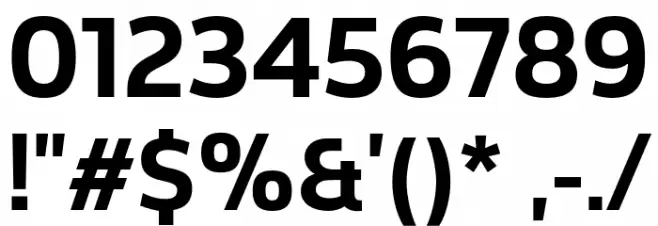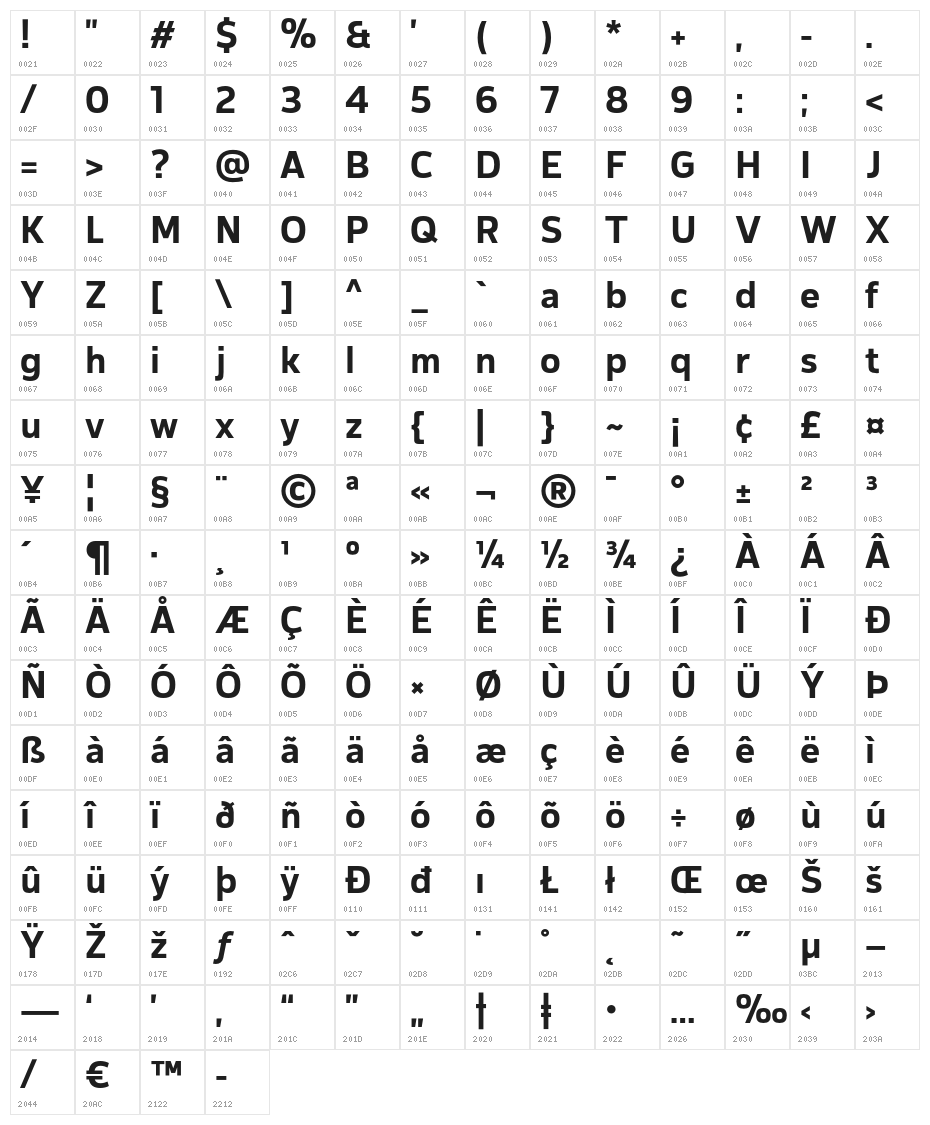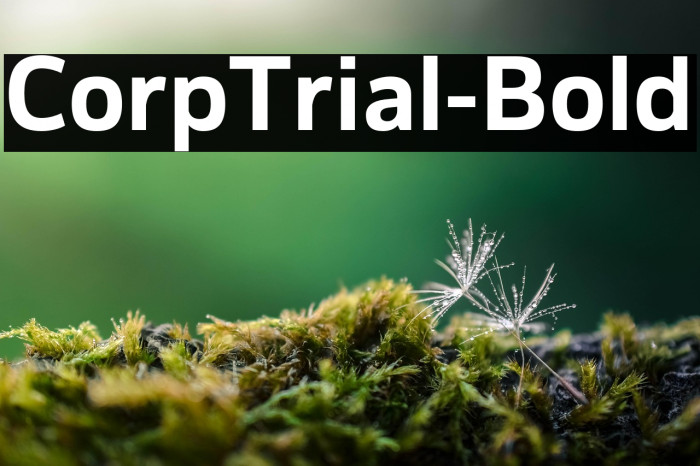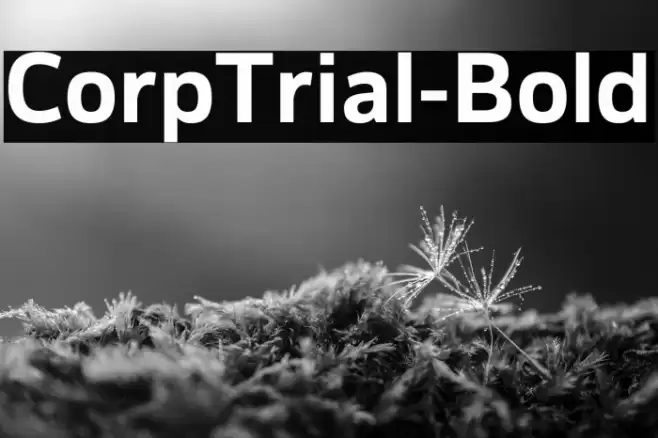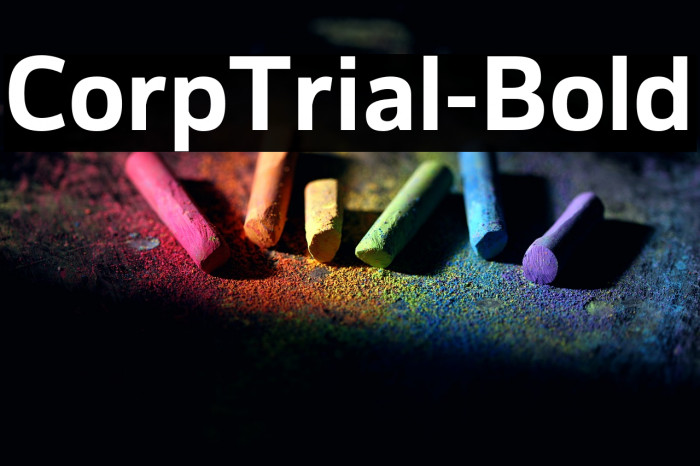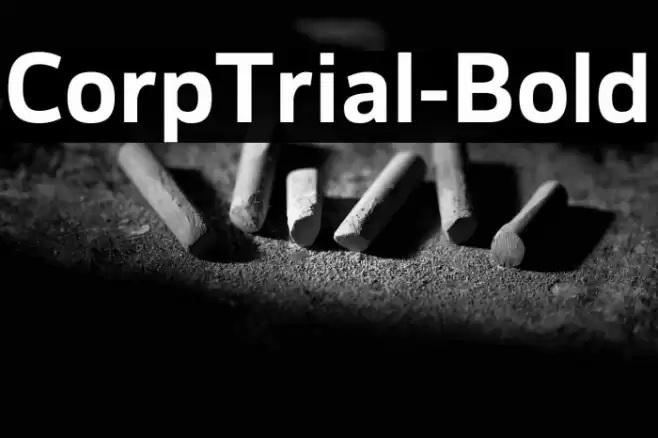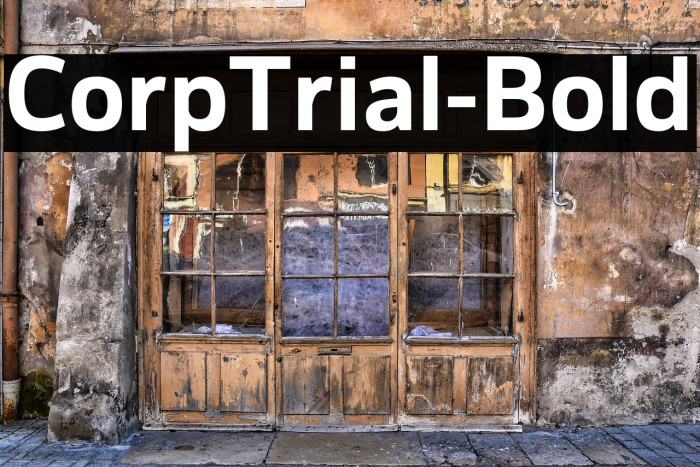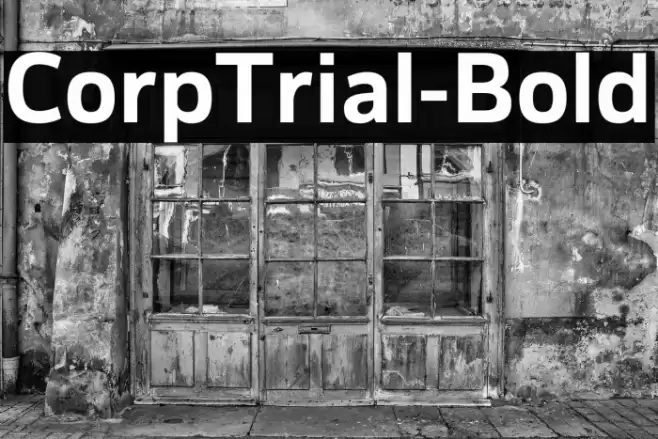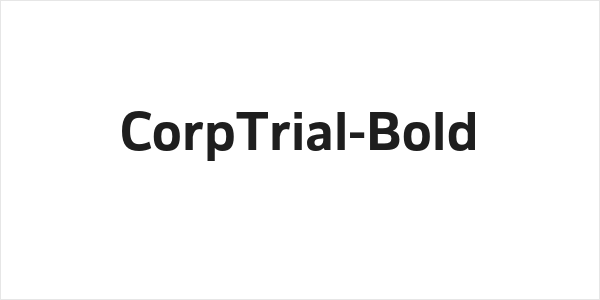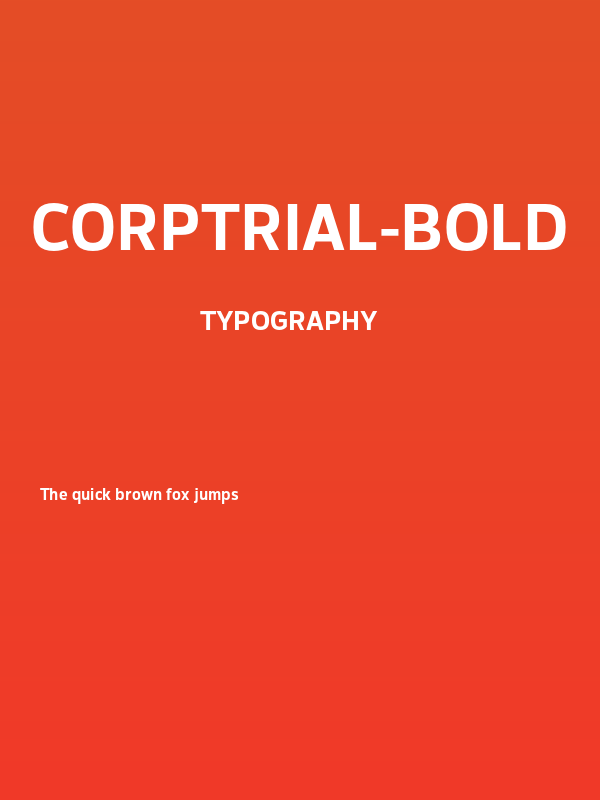
CorpTrial-Bold Font
CorpTrial-Bold Description
This font exhibits a bold and modern sans-serif style, characterized by clean lines and a strong presence. The uppercase and lowercase letters are well-proportioned, with a consistent stroke width that conveys a sense of stability and professionalism. The numerals are clear and easy to read, making them suitable for a variety of applications. Special characters are distinct and maintain the font's overall aesthetic, ensuring versatility in design. The font's simplicity and clarity make it ideal for both digital and print media, where readability and impact are crucial.